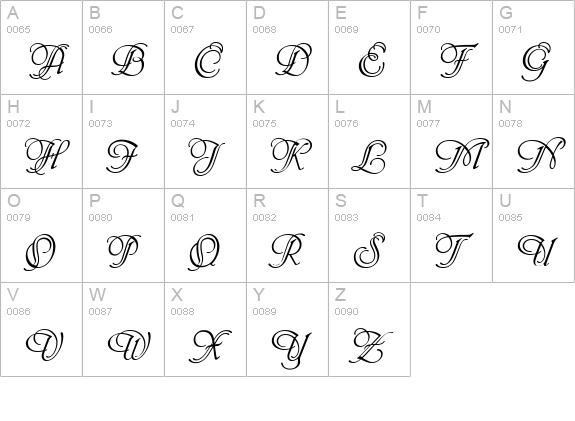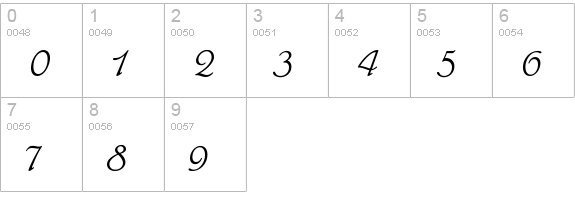
CgPhyllisInitials Font Details
CgPhyllisInitials font is a stunning display typeface that exudes elegance and sophistication. With its intricate details and ornate design, this font is perfect for adding a touch of luxury to your projects. Each letter is meticulously crafted to create a harmonious and visually appealing composition. Best of all, CgPhyllisInitials font is available for free download at FontsMarket.com. Whether you're working on invitations, branding, or any other design project, this font will surely elevate your work to the next level. Don't miss out on the opportunity to enhance your creations with this exquisite typeface. Download CgPhyllisInitials font today and let your creativity shine!